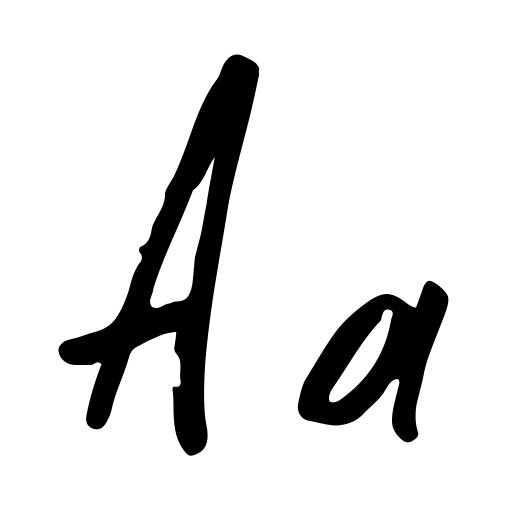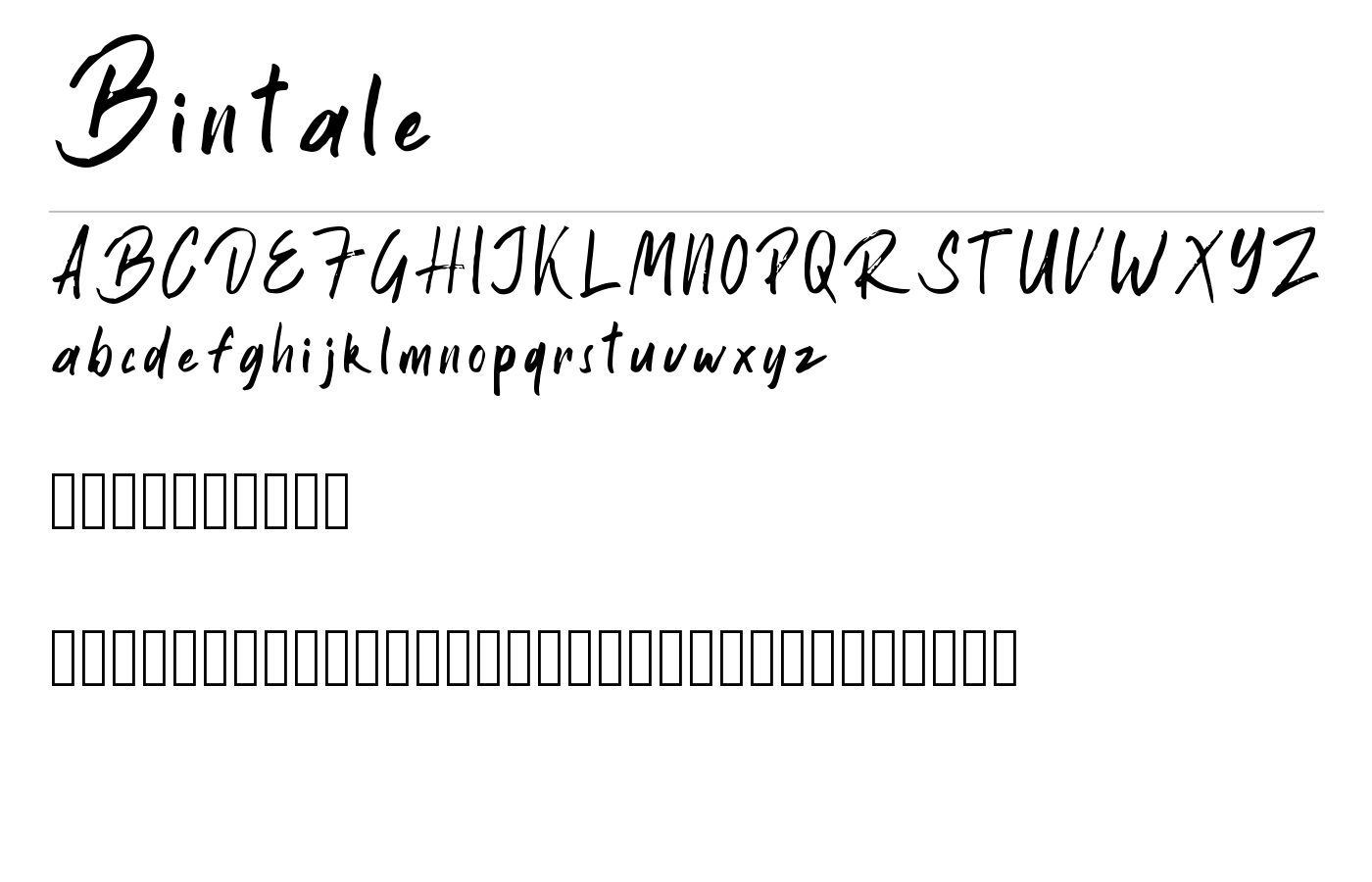
Bintale is a lively handwritten script font with a casual, brushstroke style that feels natural and personal. Its medium weight, tall x-height, and slightly irregular characters give it an energetic and approachable vibe, perfect for creative projects, branding, and invitations that want a friendly, informal touch. This font works well in headlines or short texts where a warm, handcrafted look is desired.
Bintale Font